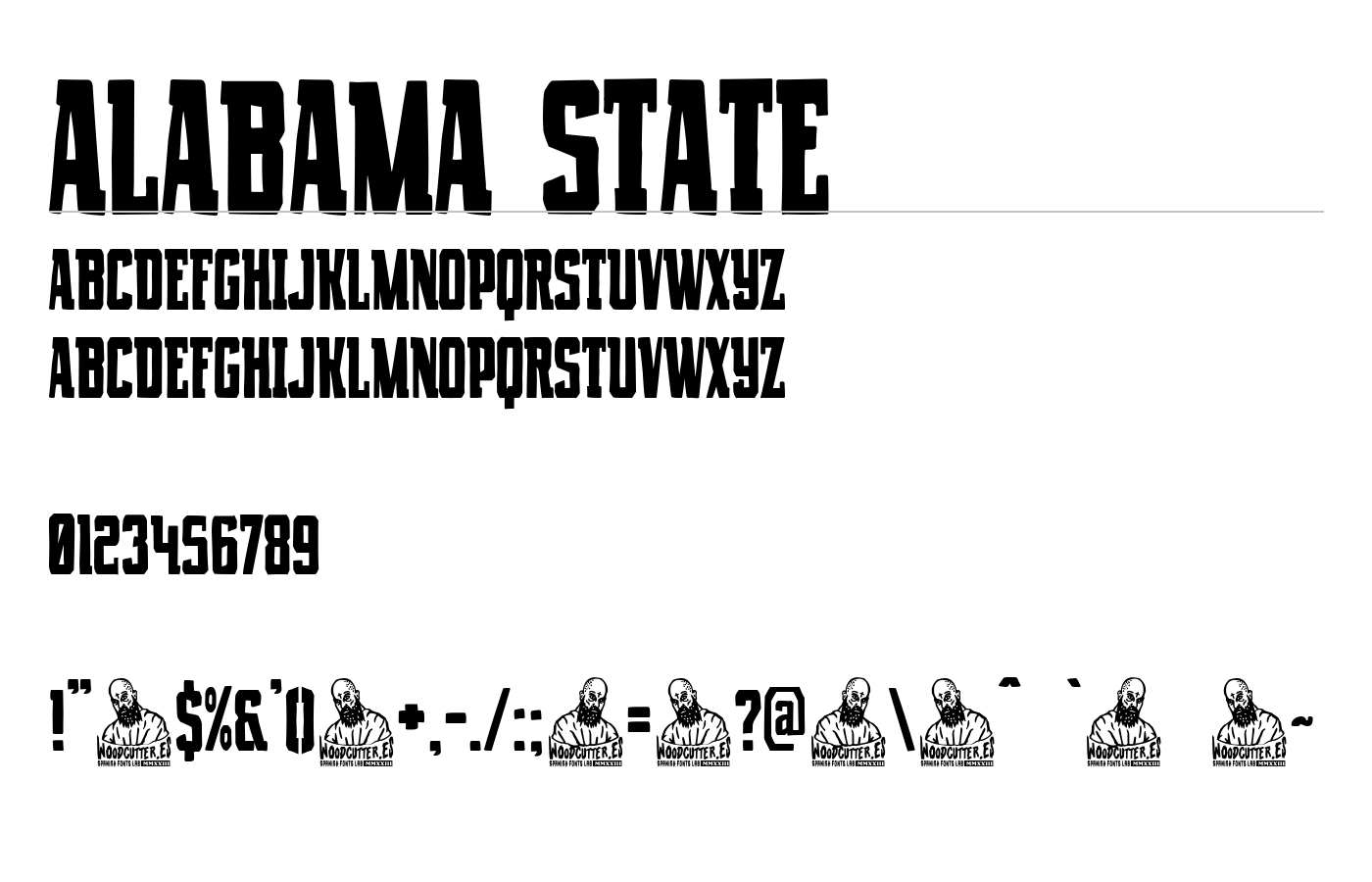
Alabama State Font is a bold, condensed slab serif with a strong, vintage Western vibe that commands attention. Its thick strokes with minimal contrast and sturdy block-like serifs give it a rugged, confident personality perfect for headlines, posters, and branding that needs a bold, retro feel. This font works best in designs seeking to evoke a nostalgic Americana style, such as rustic signage or sports-themed projects.
Alabama State Font
About Alabama State Font